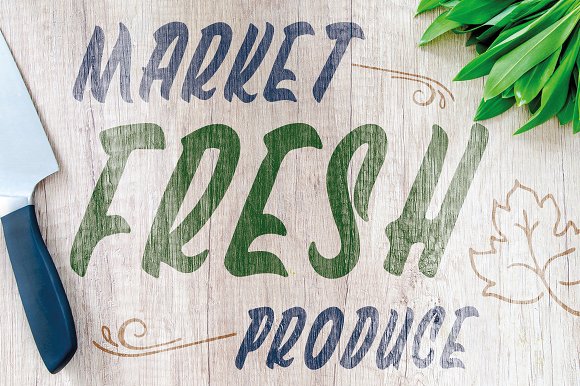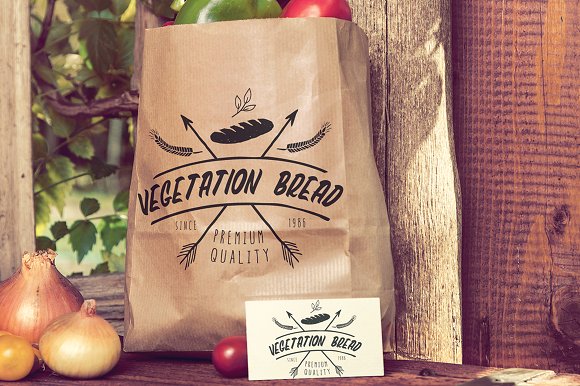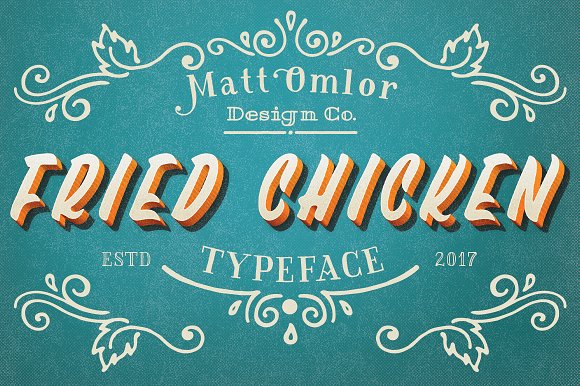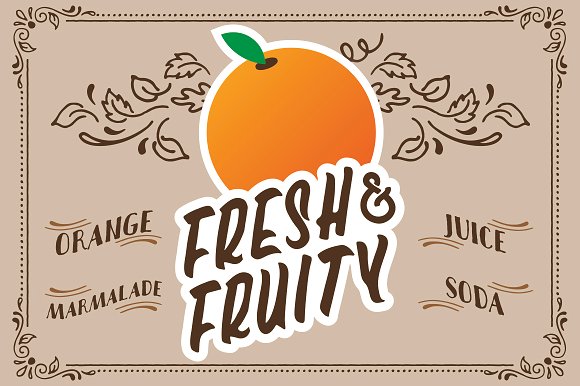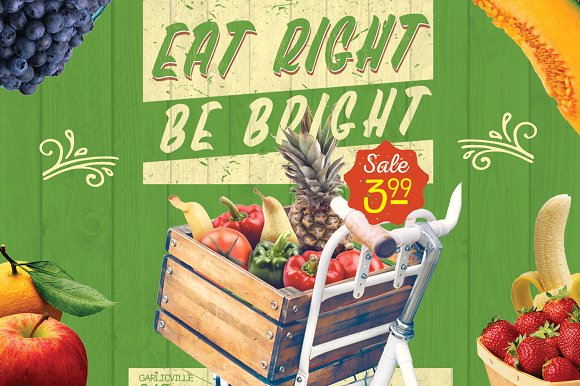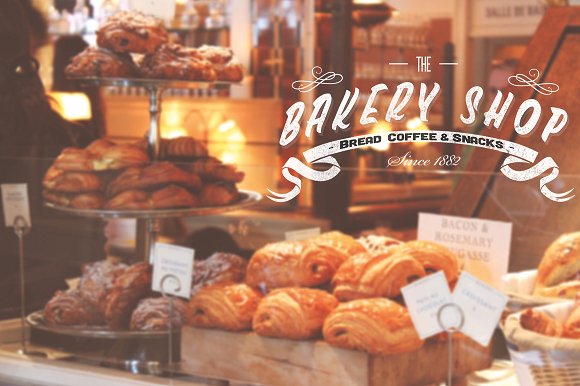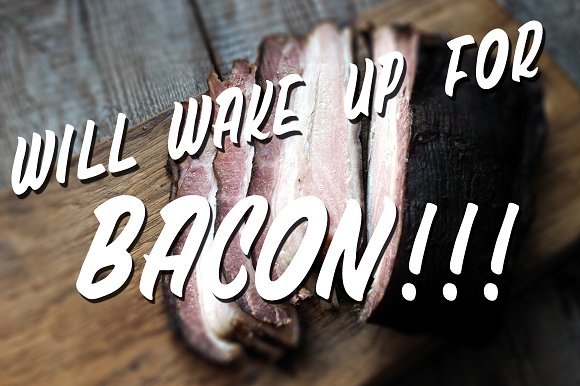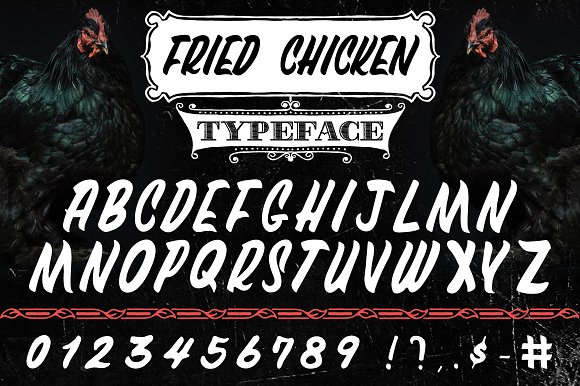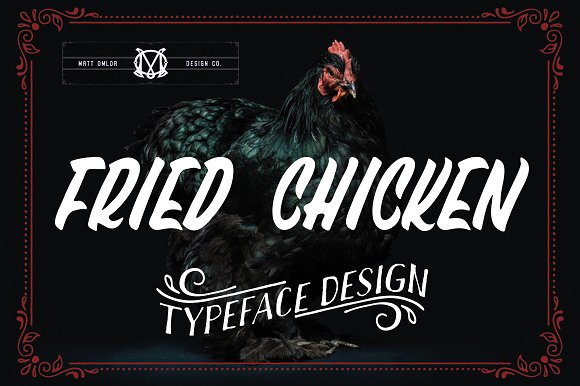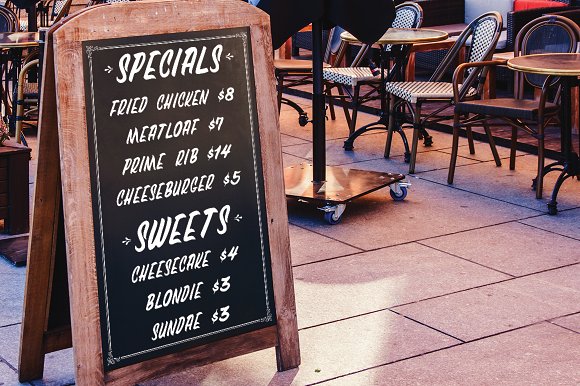
Fried Chicken Typeface
Fried Chicken Typeface is a fun typeface that was inspired by hand painted sidewalk restaurant menu signs. These signs always seem to have a nice flow in their brush strokes and I wanted to capture that in this font design.
It is an ALL CAPS font, so be sure to use the CAPS button when you use this Typeface.